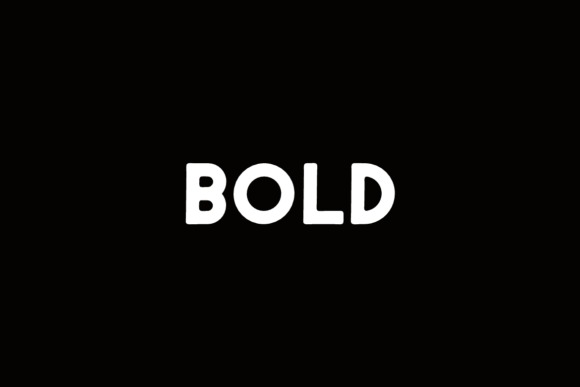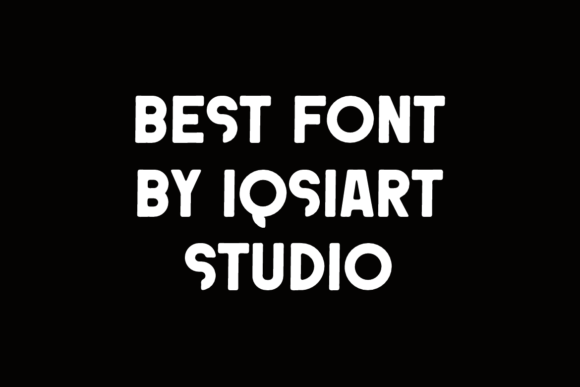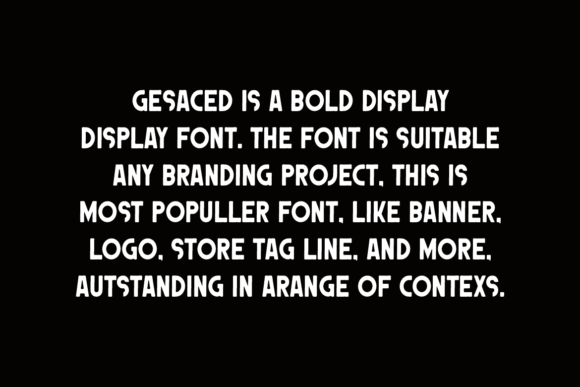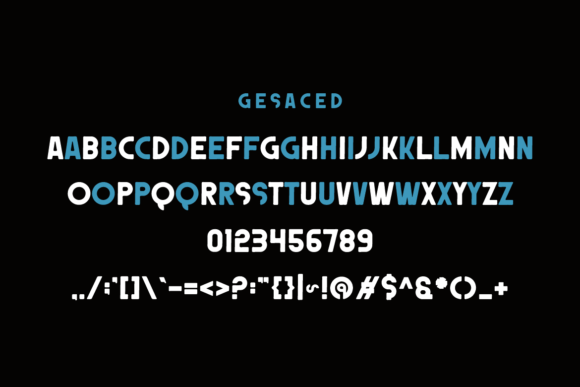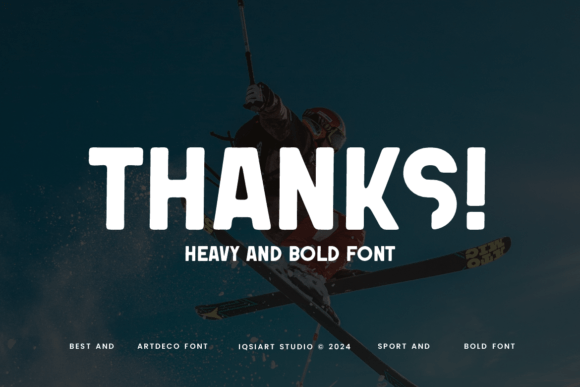
Introduction to Gesaced Font
Have you ever stared at a blank page, wondering how to make your creative project truly pop? I know I have. As designers, we’re always on the hunt for that perfect font to elevate our work and grab our audience’s attention. That’s where the Gesaced Font comes in – a game-changing, bold, and round font that’s sure to make your titles and signs stand out in a crowd.
With its thick, heavy letters and soft, strong shapes, the Gesaced Font is a design resource that’s hard to resist. Whether you’re working on a high-quality logo, a free download for a client, or simply a creative project that needs a little extra oomph, this font is the perfect choice. Its versatility and unique aesthetic make it a valuable addition to any designer’s toolkit.
Key Features of Gesaced Font
- High-quality font with a transparent background, ideal for creative projects requiring a unique design element.
- Features a clean and elegant design, suitable for use in various creative projects, including logos, branding, and typography-based art.
- Part of a larger font family, offering a range of styles and weights to suit different design needs and preferences.
- Can be easily customized and edited using font editing software, allowing designers to further enhance its unique characteristics.
Honest Review: Gesaced Font
I recently had the chance to work with the Gesaced Font, and I must say it’s been a game-changer for my creative projects. This font is a high-quality design resource that adds a touch of elegance to any project. One of the things I appreciate most about the Gesaced Font is its ability to adapt to any design scenario, making it a versatile choice for designers.
- ✨ The Gesaced Font has a clean and modern aesthetic that’s perfect for creating a professional look.
- ✨ It’s incredibly easy to use, even for beginners, thanks to its intuitive design.
However, there are a few limitations to consider: ⚠️ The font doesn’t support transparent backgrounds, which can be a bit limiting for designers who want to create complex, multi-layered designs. Additionally, the font may not be suitable for very small text sizes, as it can become difficult to read.
Overall, I’m impressed with the Gesaced Font and would highly recommend it to designers looking for a high-quality, free design resource. It’s perfect for creative projects that require a touch of sophistication and elegance. With its versatility and ease of use, the Gesaced Font is sure to become a staple in any designer’s toolkit.
Tips for Getting the Most Out of Gesaced Font
To get the most out of Gesaced Font, use it in conjunction with other design elements to create a visually appealing design.
Experiment with different font sizes, colors, and styles to find the perfect combination for your project.
Gesaced Font is commonly used in:
Logo designs
Brochures and flyers
Business cards
Website headers and footers